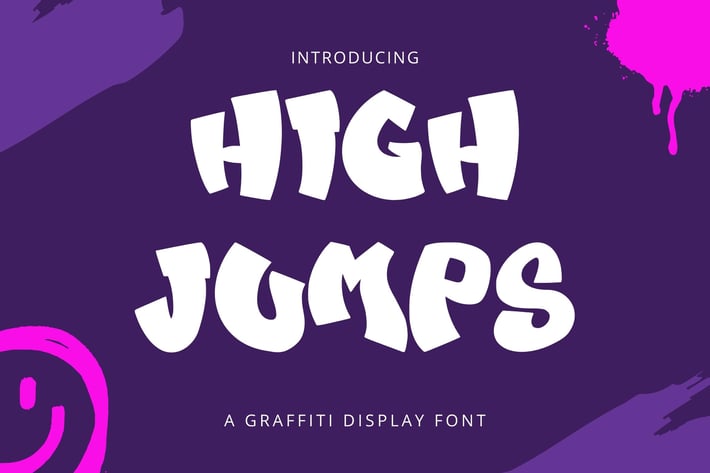
High Jumps - A Graffiti Display Font
High Jumps - A Graffiti Display Font is a free style font that has the characteristics of street art that shows freedom and is filled with unique characters